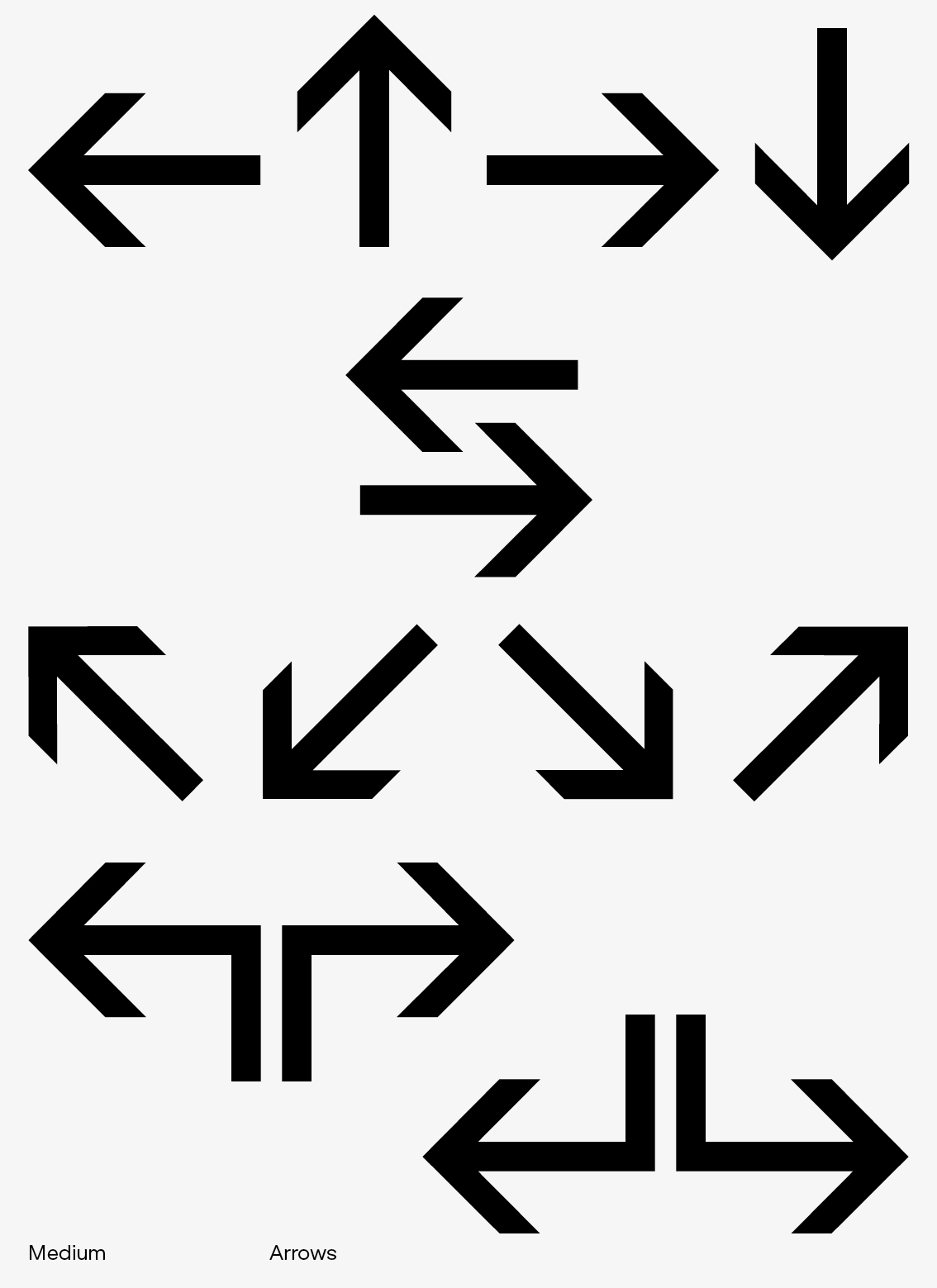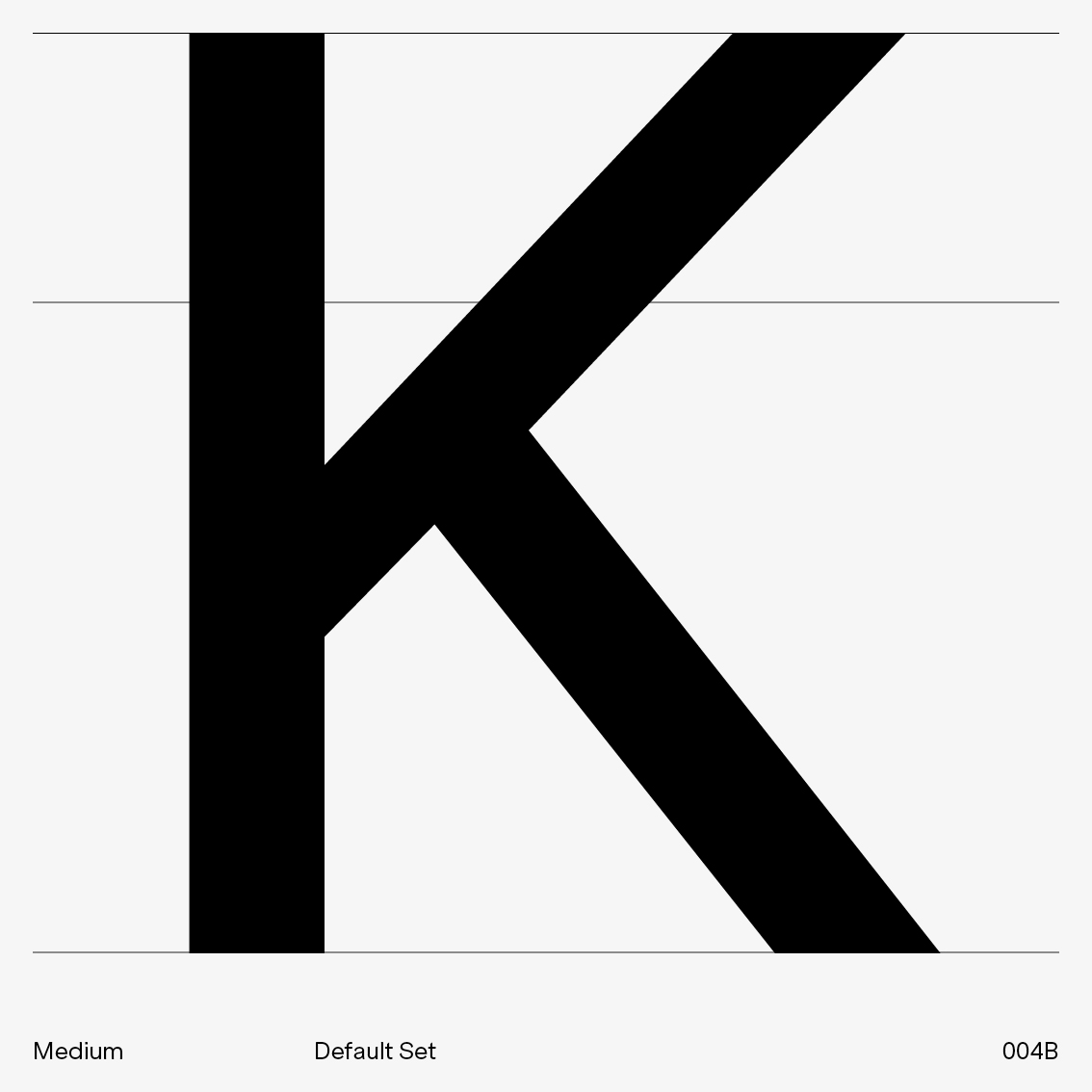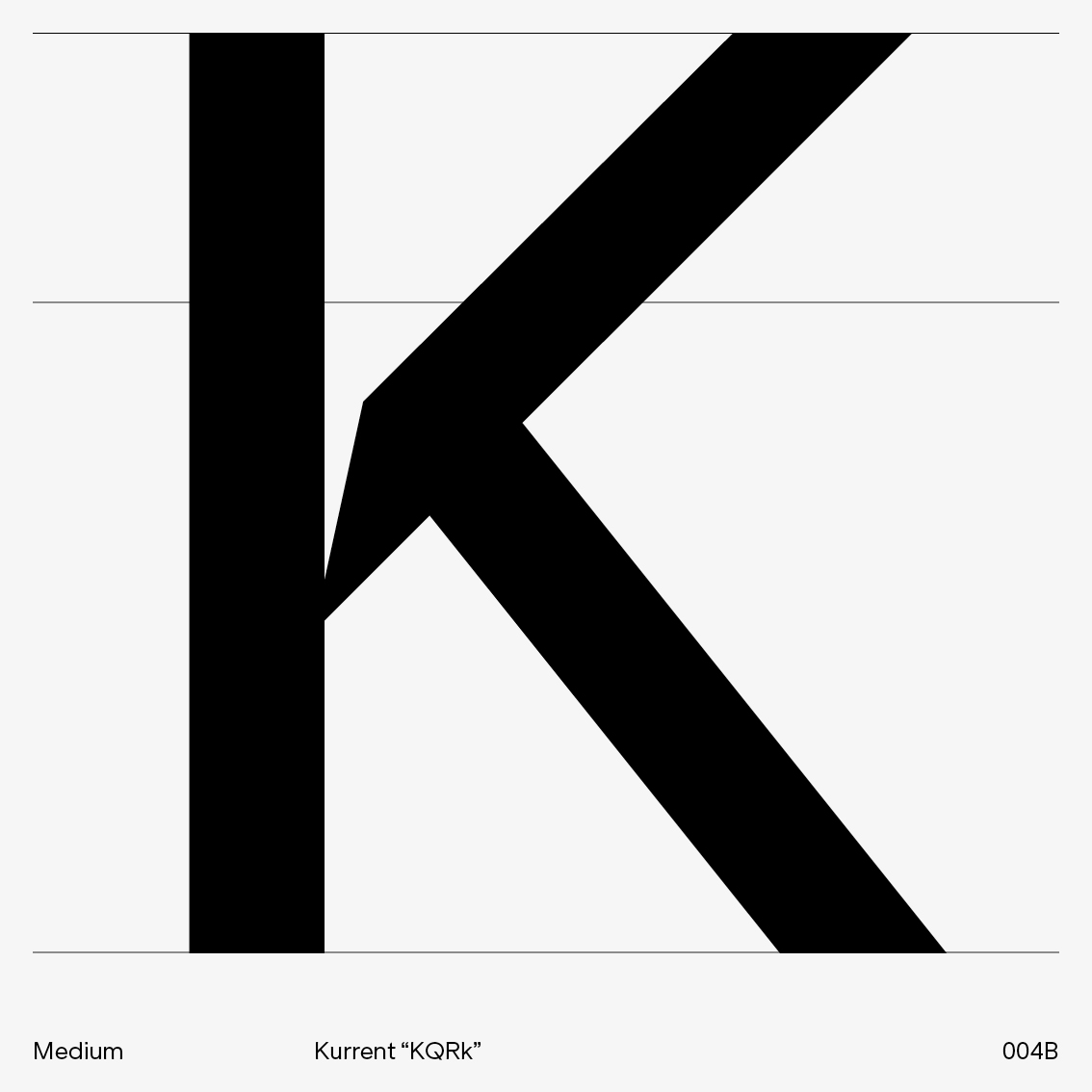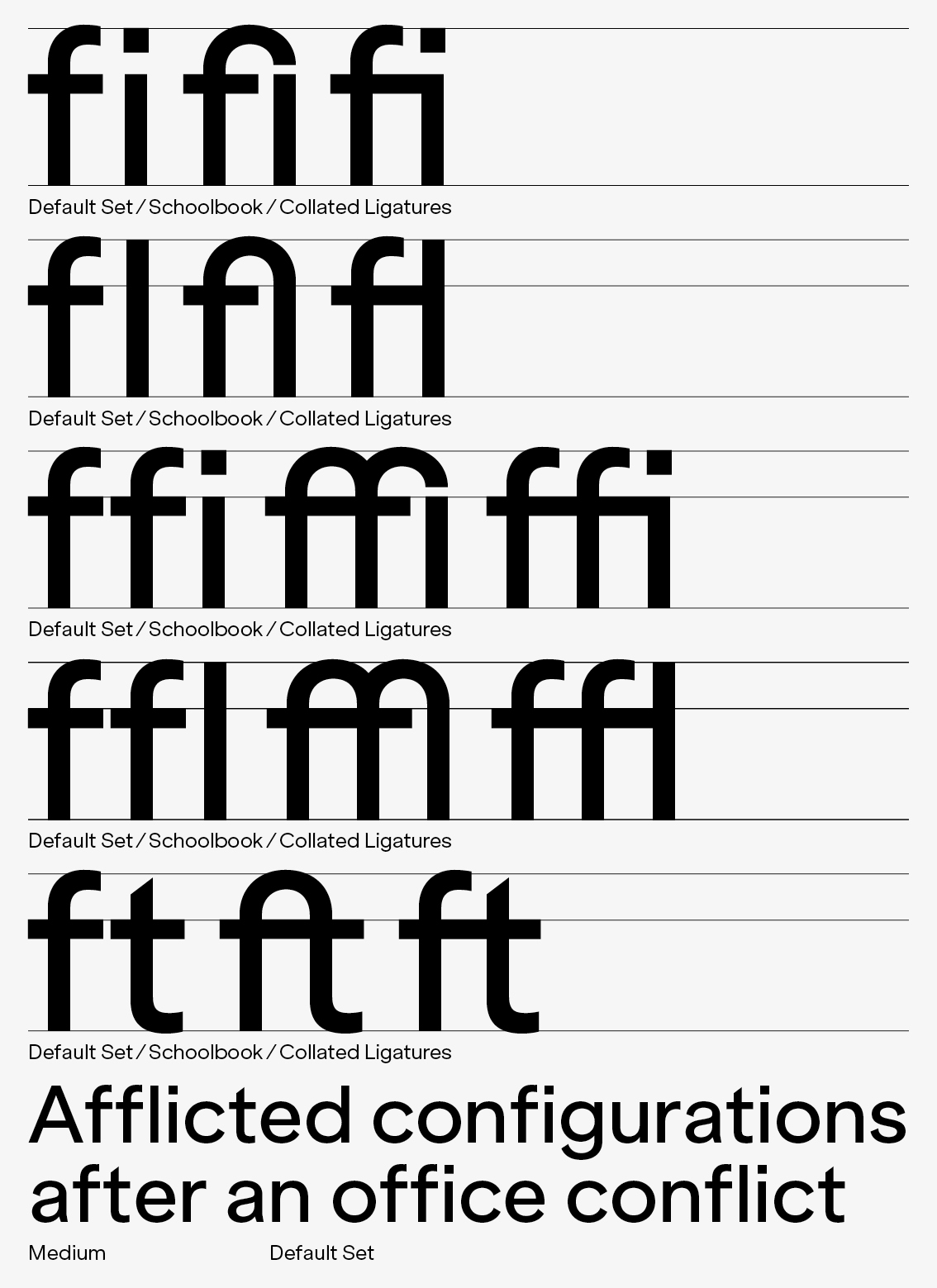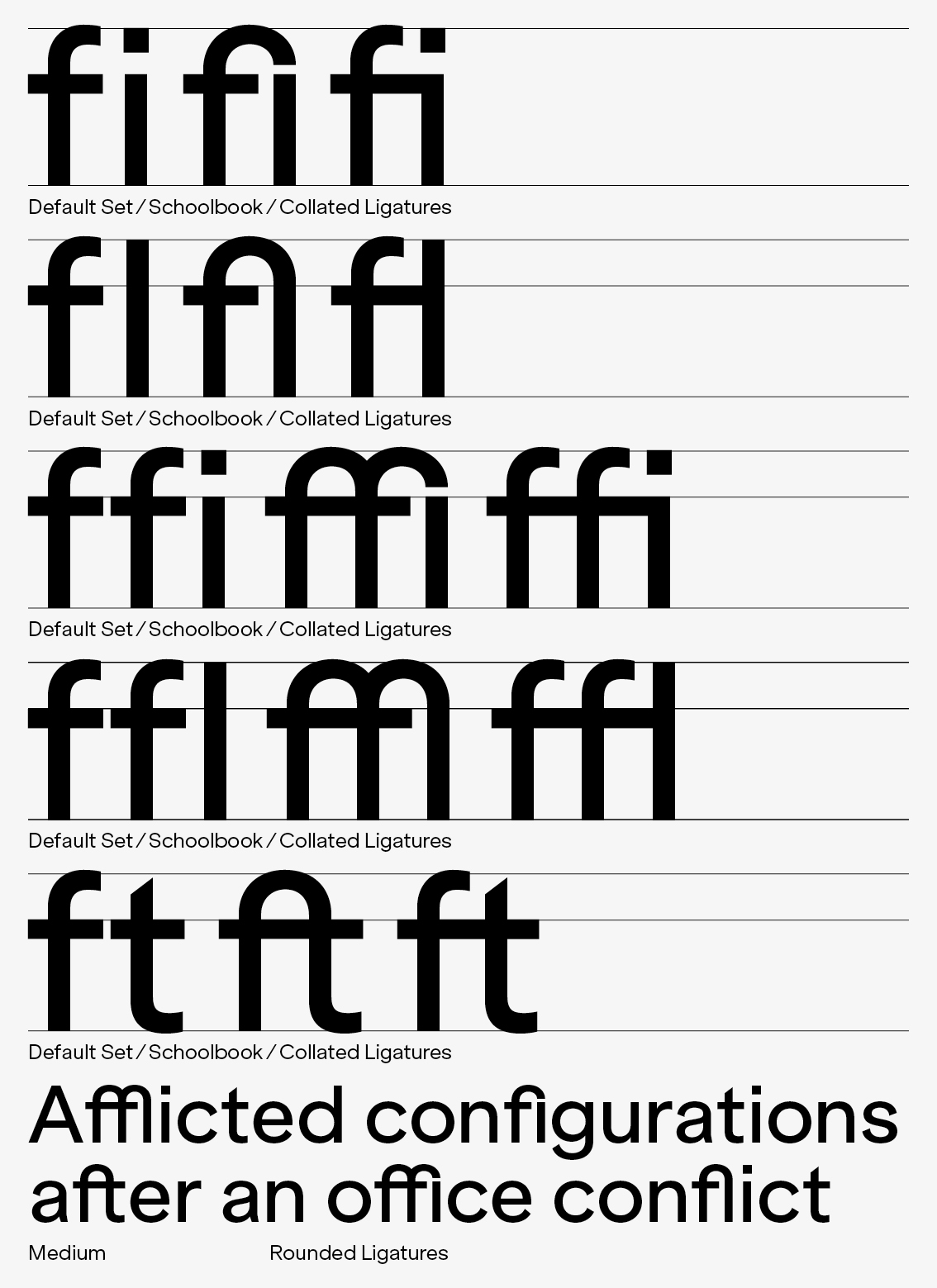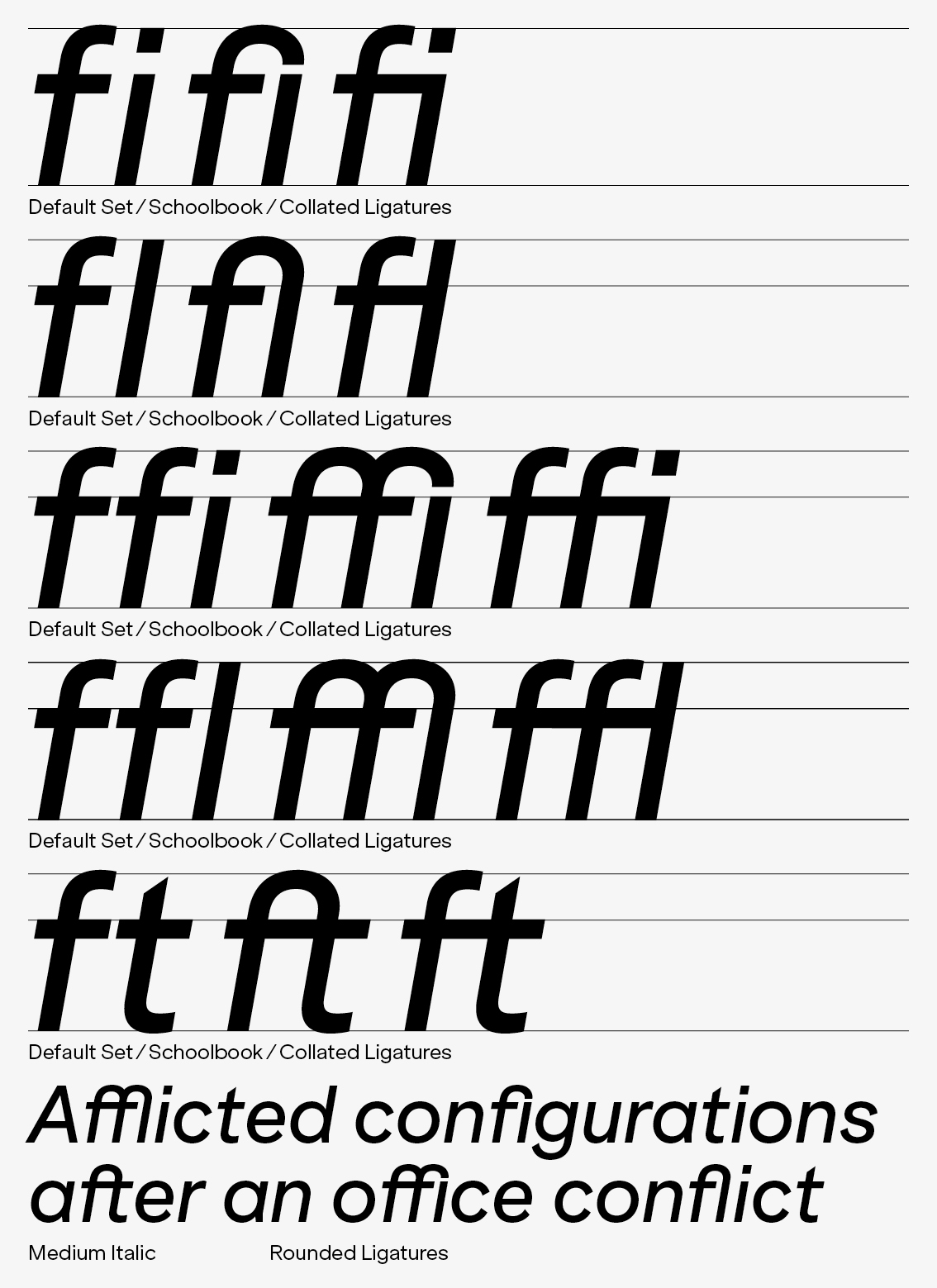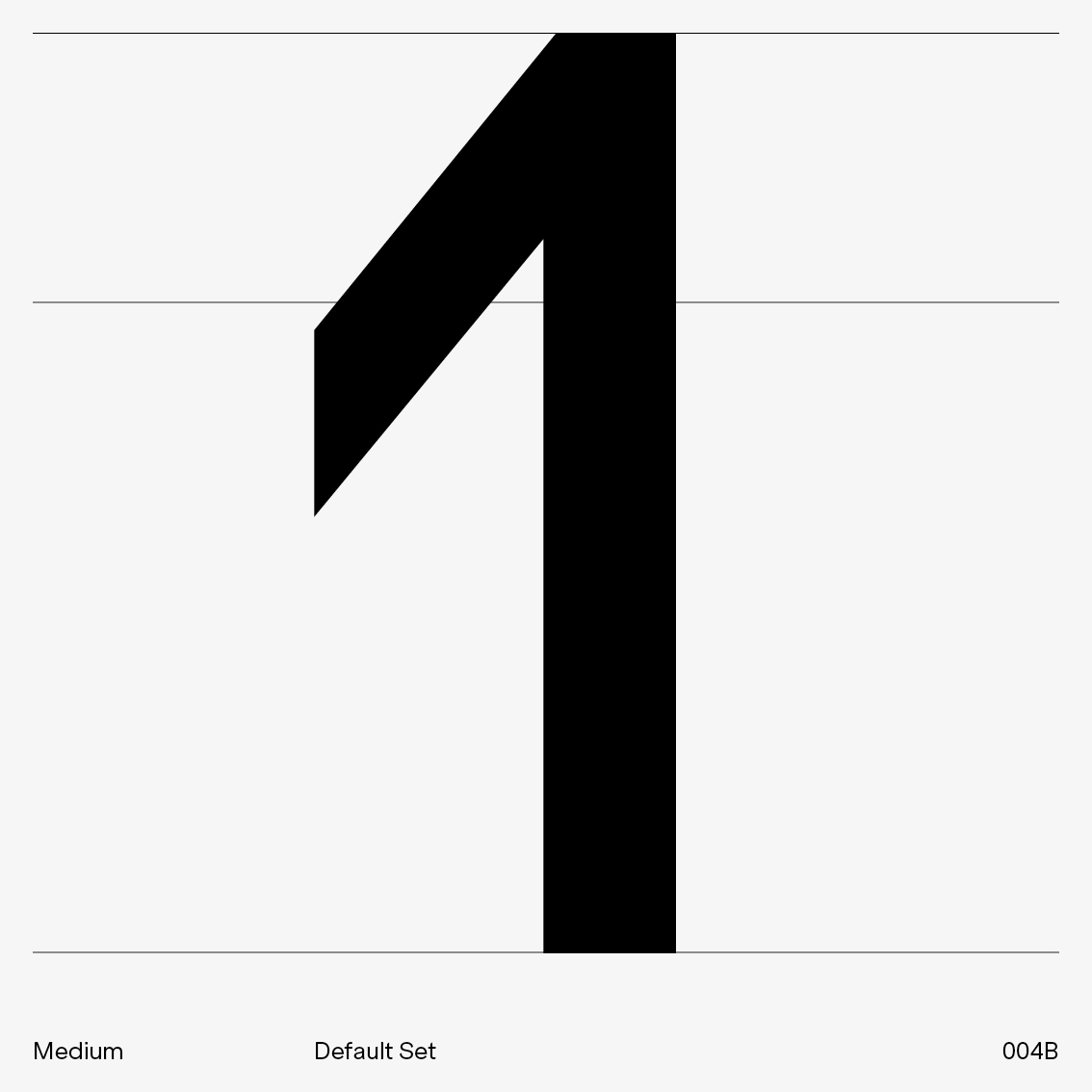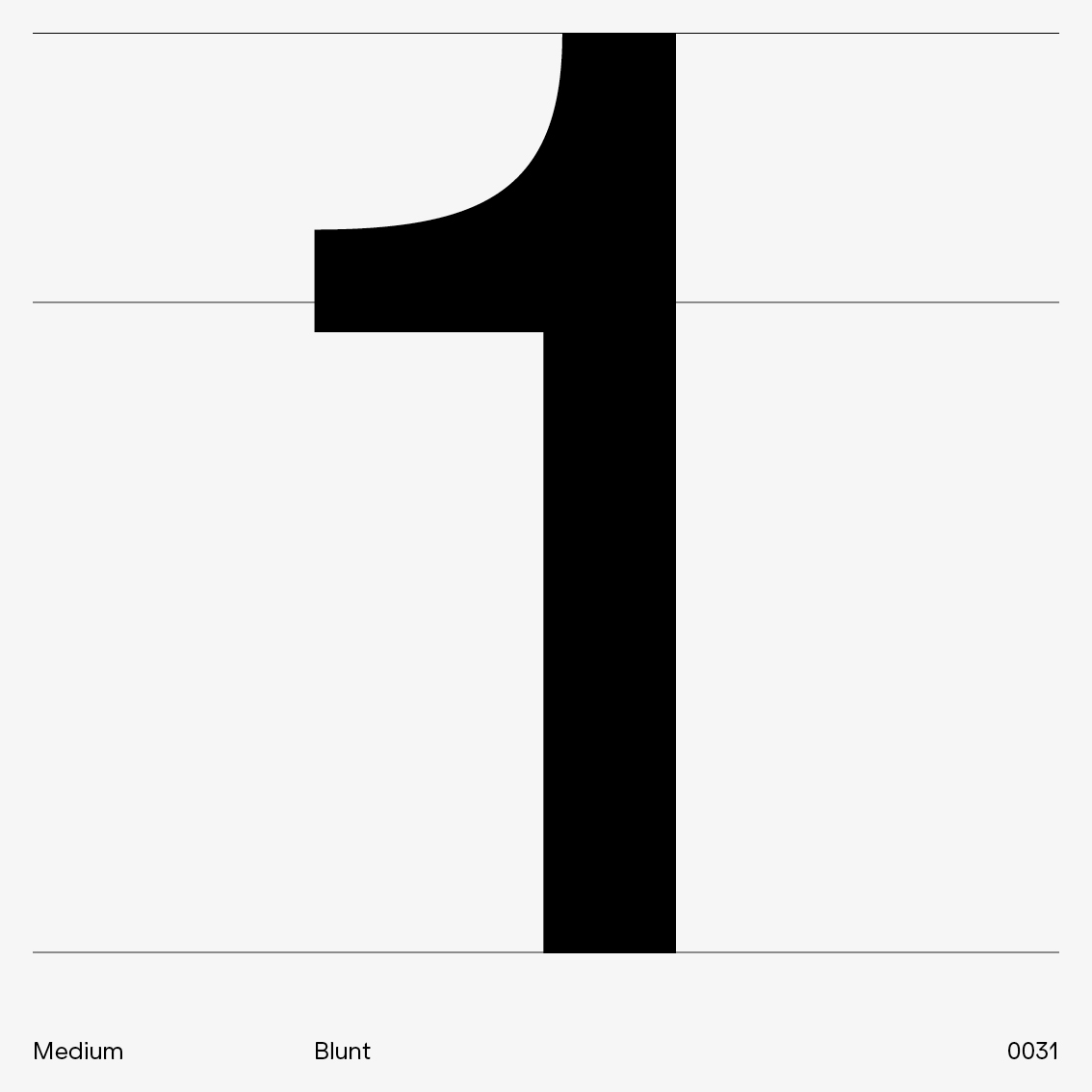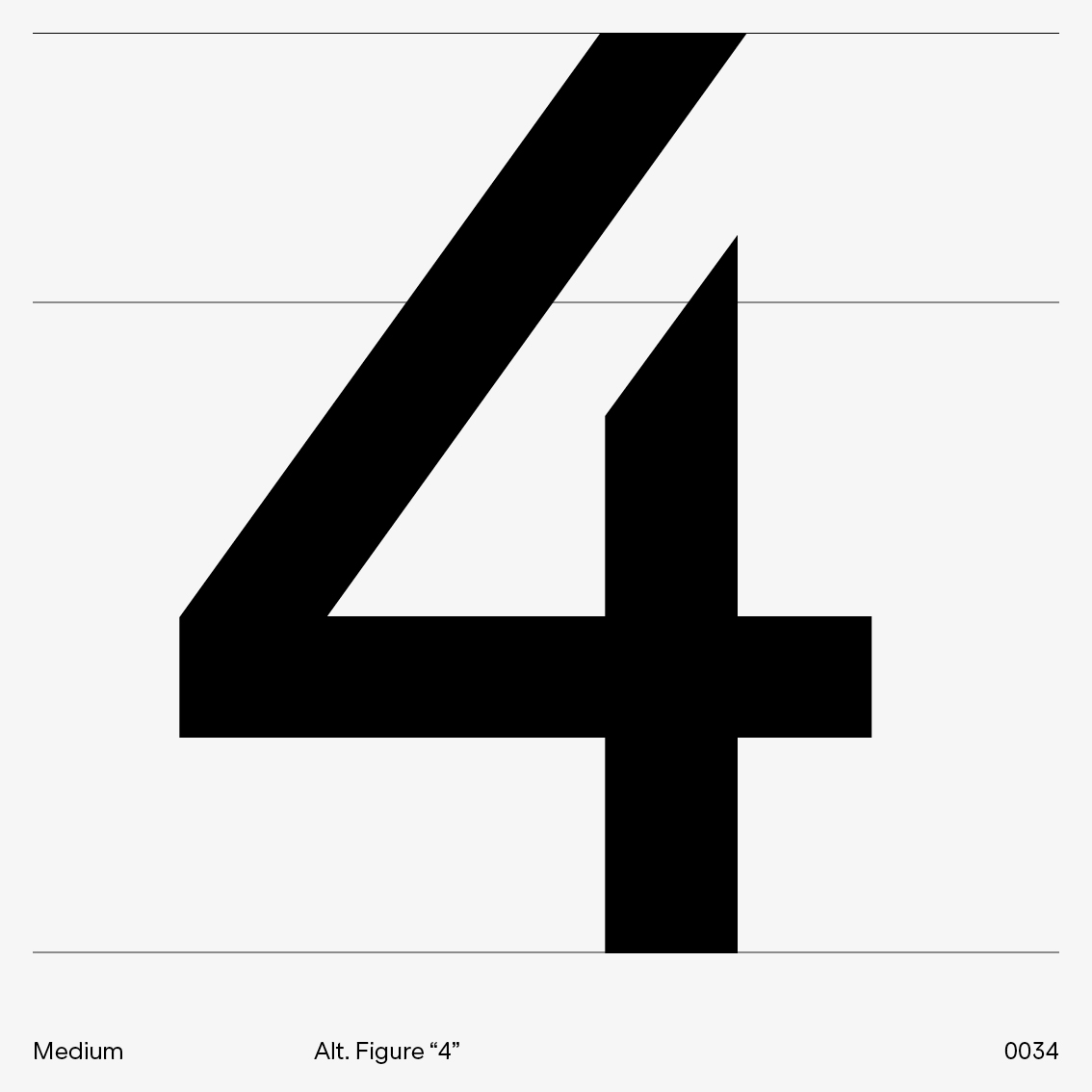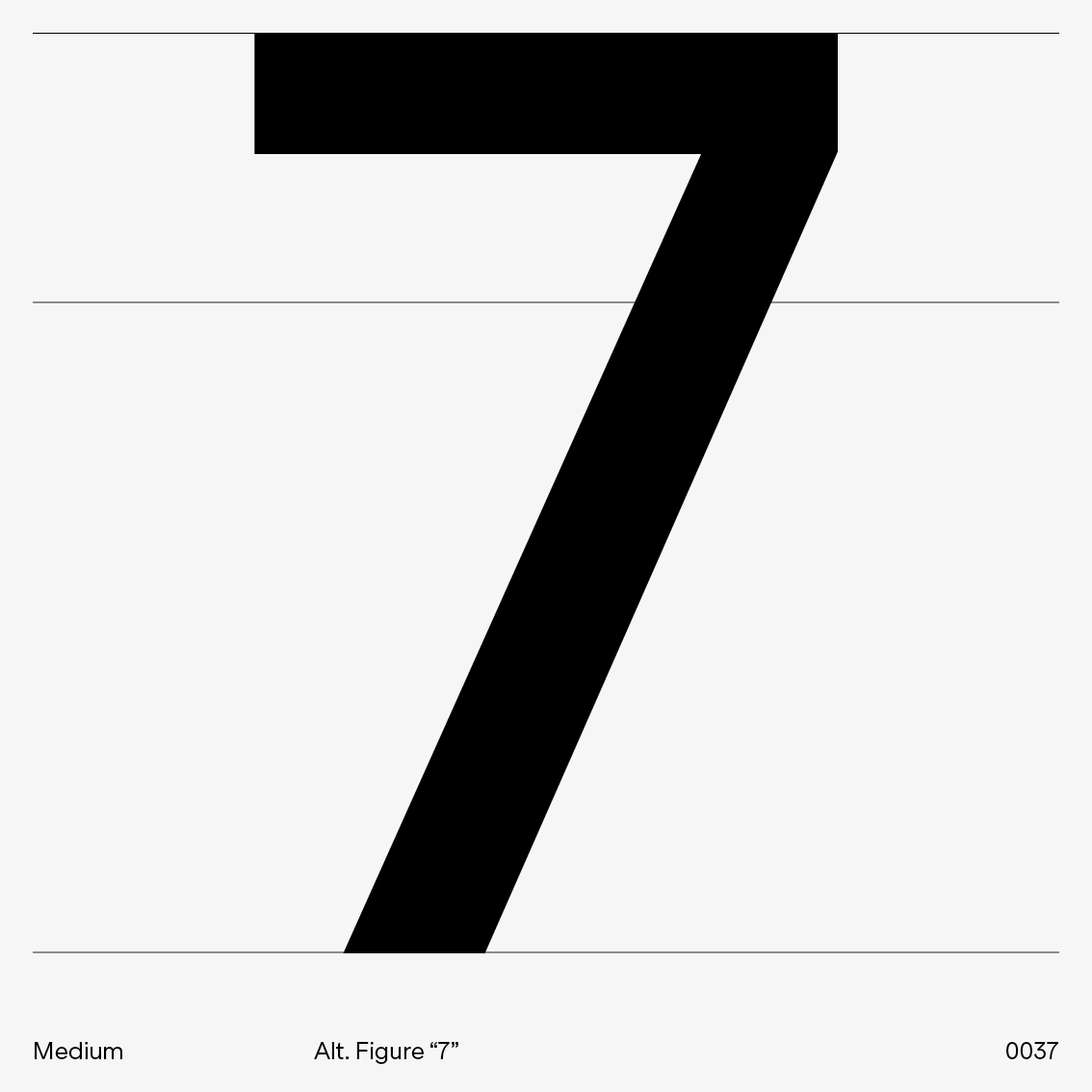
Oscillating between two major standards, Klarheit Grotesk seeks to meet the requirements of a more contemporary form of modernism. The project features a formula that revisits geometrical solutions drawn from the Bauhaus movement as well as key typographic standards used in 1960s Swiss modernism. After five years of work and various experiments with this tool, Alex Dujet has come up with several finishing touches revolving around the global structure of its basic design.
Several frameworks have thus been defined combining consistent historical periods with great readability and glyph precision when using this font for text as well as headlines. With this in mind, the OpenType possibilities include 12 versatile stylistic sets that feature a variety of finishes. The many possible combinations through the use of this palette allow for progressive design choices oscillating between neutral and more assertive graphic positioning.